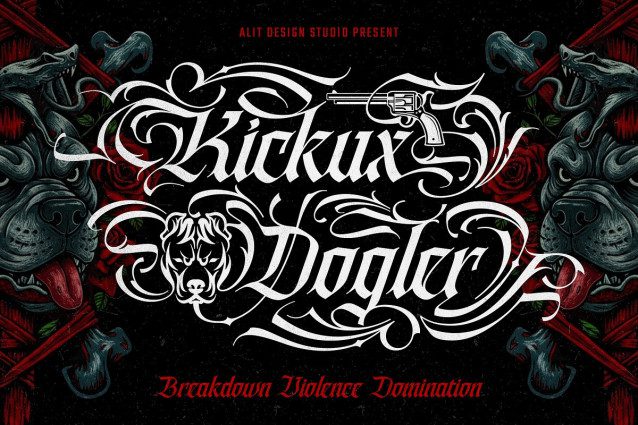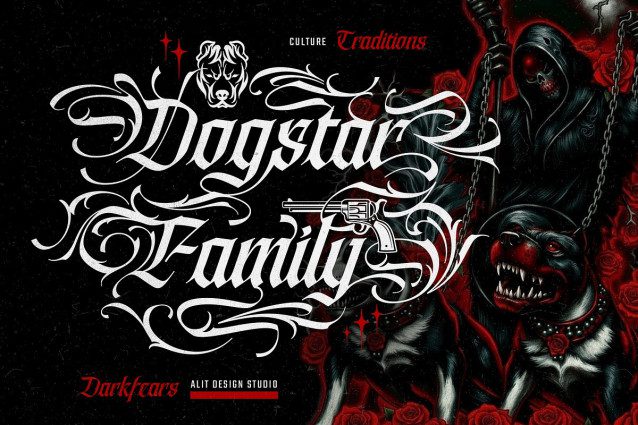
Syndicate Shadow Font
Syndicate Shadow Font is not just a font; it’s a declaration. Born from the raw, unfiltered energy of parlor tattoo art and the bold spirit of Chicano script, this Blackletter Gothic font bleeds rebellion and pure urban culture. It’s the brand of the street, a “Sanctuary of Expression” for the fearless.
Command your design with a massive arsenal of over 961 glyphs. Syndicate Shadow is loaded with stylistic alternates, ligatures, and elaborate swashes that give you unparalleled creative power. This font goes beyond simple letters—it provides icons of the lifestyle.
Thematic Alternates: Define your territory with exclusive swashes. Unleash the ferocious ‘Pitbull’ glyphs, add a dangerous edge with ‘Revolver’ alternates integrated directly into the script, and embrace the dark with intricate ‘Skull’-infused characters.
Massive Stylistic Sets: With multiple sets for both uppercase and lowercase letters, you can create truly custom, one-of-a-kind lettering that looks hand-drawn.
Full Character Set: Includes a complete set of basic uppercase, lowercase, numbers, and punctuation, all designed with the same sharp, gothic precision.
Multilingual Support: Take your message global with comprehensive language support.
This is the ultimate font for projects that demand a strong, uncompromising identity. It’s built for tattoo designs, bold apparel, music branding (metal, hip-hop, rock), logo design, and any graphic that “Rules the Streetnight.”